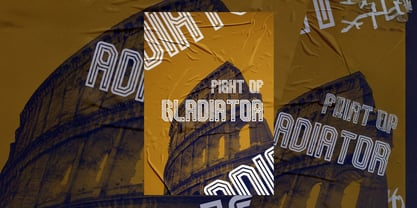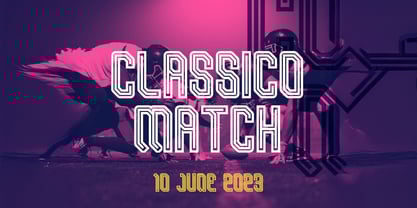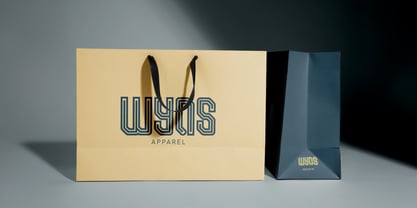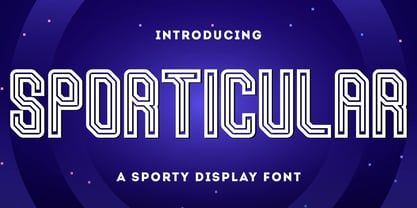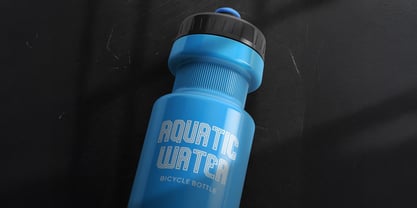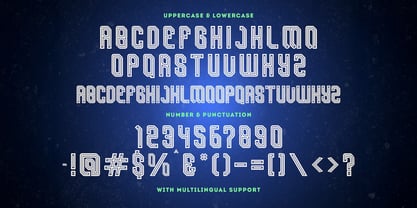
Sporticular
por Stringlabs Creative Studio
La familia tipográfica Sporticular fue diseñada por Virgiawan Listanto y publicada por Stringlabs Creative Studio. Sporticular contiene 1 estilos.
Sporticular is a powerful and energetic sporty display font that captures the dynamic spirit of competition and modern athletics. Designed with bold, confident letterforms and a clean, contemporary aesthetic, it's the ideal choice for projects that demand high impact and a sense of movement. Whether you're creating a logo for a sports team, designing a gym's branding, or crafting headlines for a gaming event, Sporticular delivers a strong, athletic feel that's ready to win.
Diseñadores: Virgiawan Listanto
Editorial: Stringlabs Creative Studio
Fundición: Stringlabs Creative Studio